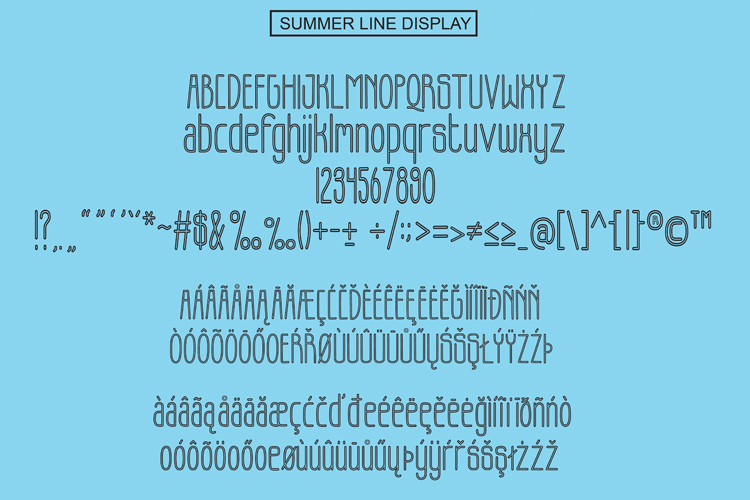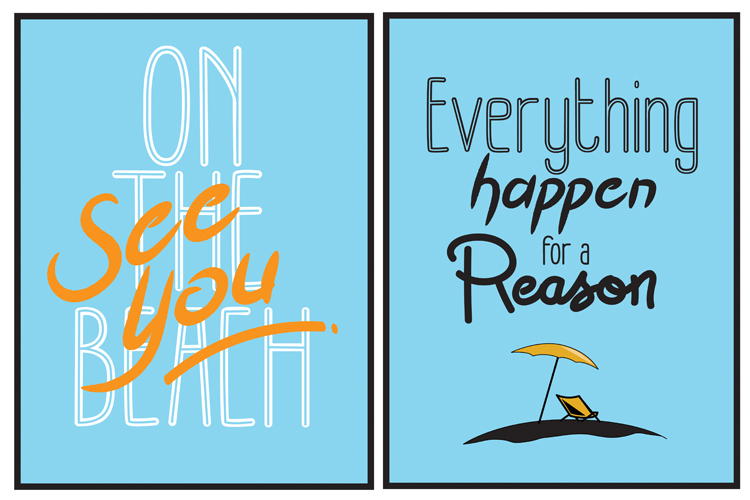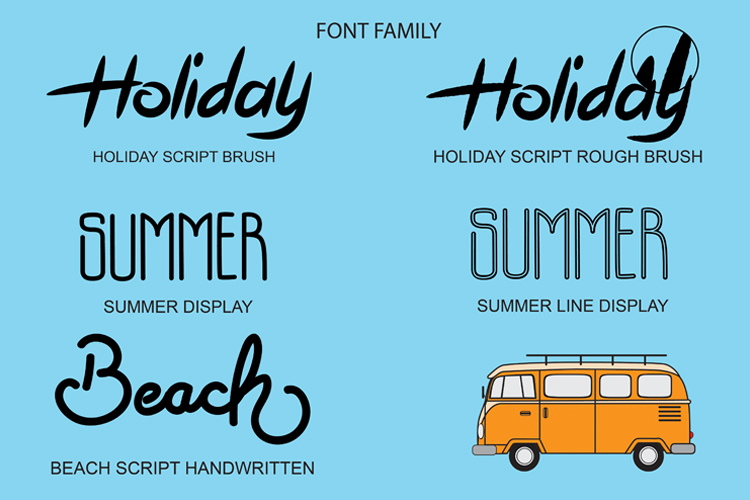
Holiday Summer Beach Font
Holiday Summer Beach is a bold modern handlettering script with strong style and dramatic movement. It’s allowing you to create beautiful hand-made typography in an instant